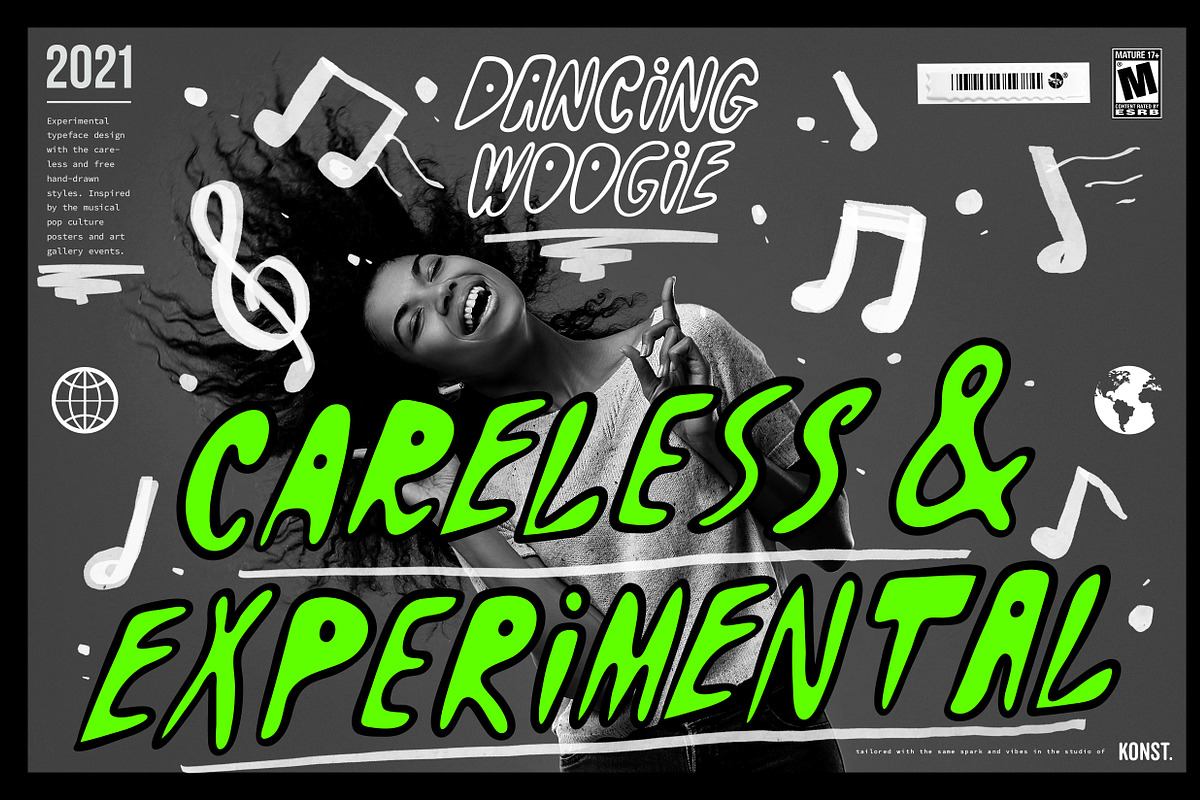
The Dancing Woogie - Experimental Fonts Free Download is a playful and unique typeface that brings an artistic and experimental touch to your designs. With its quirky, irregular letterforms and energetic style, this font is perfect for creating fun, bold projects like event posters, branding, social media graphics, and more. Whether you’re working on a creative campaign, a modern art project, or an eye-catching headline, Dancing Woogie adds a dynamic flair.
Dancing Woogie - Experimental Fonts Free Download is ideal for designers who want to experiment with unconventional typography. Perfect for artistic, creative, and bold projects, this font will make your work stand out. Download this fun and experimental font today and inject some playful energy into your designs!